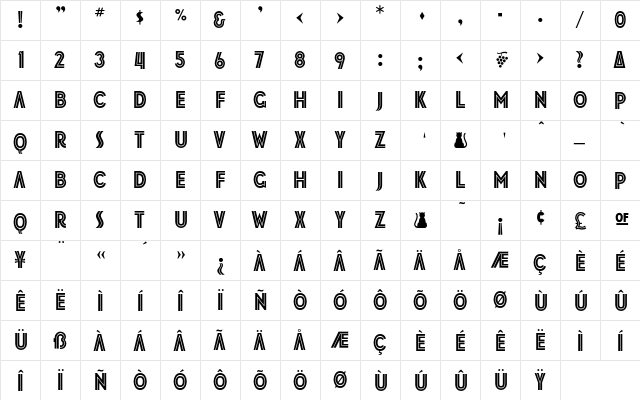
JMPosterInline Regular
Design Context for JMPosterInline Typeface
JMPosterInline brings ornamental detail and strong personality to headlines and identities, where visual impact matters more than quiet functionality.
Font Pairing: Pair with a clean neutral sans-serif for body copy to let JMPosterInline's character lead without overwhelming the composition.
Pro Tip: Use JMPosterInline exclusively at display sizes — it was designed to be seen, not read at length. Let a neutral companion handle body copy.